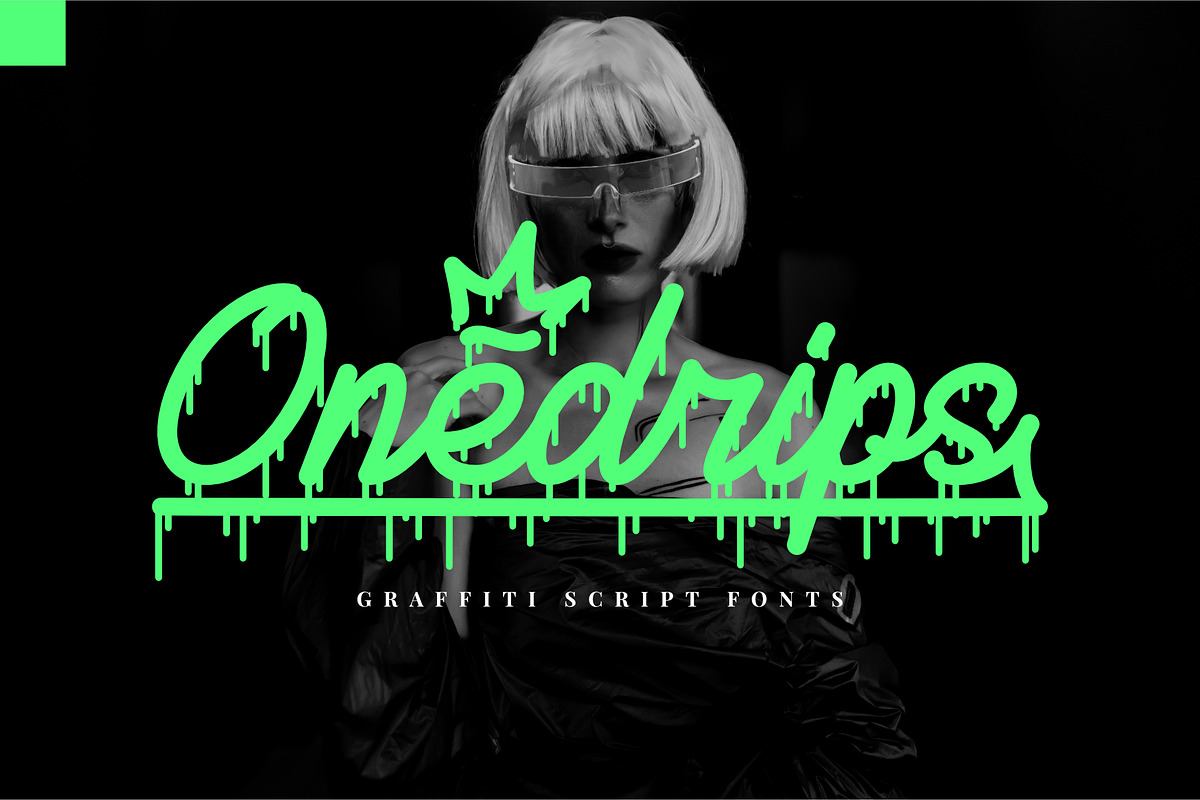
Onedrips - Graffiti Script Font Free Download is a bold and edgy script typeface inspired by street art and graffiti culture. Featuring fluid, artistic strokes and urban-style letterforms, this font is perfect for projects that need a rebellious, creative vibe, such as posters, logos, streetwear designs, social media graphics, and album covers.
Onedrips - Graffiti Script Font Free Download brings a sense of spontaneity and raw energy to your typography, making it ideal for designs related to music, urban culture, or any project that calls for a strong visual impact. Whether you’re creating graffiti-inspired artwork or a bold brand identity, this font adds a unique, artistic flair.